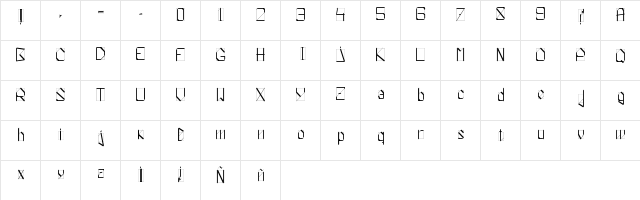
White-Knight Regular
| Designer | Eric Amate |
White-Knight is a composed and adaptable typeface that performs quietly and consistently across a wide range of design contexts.